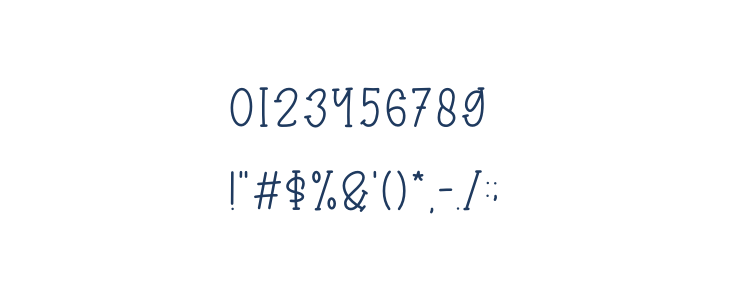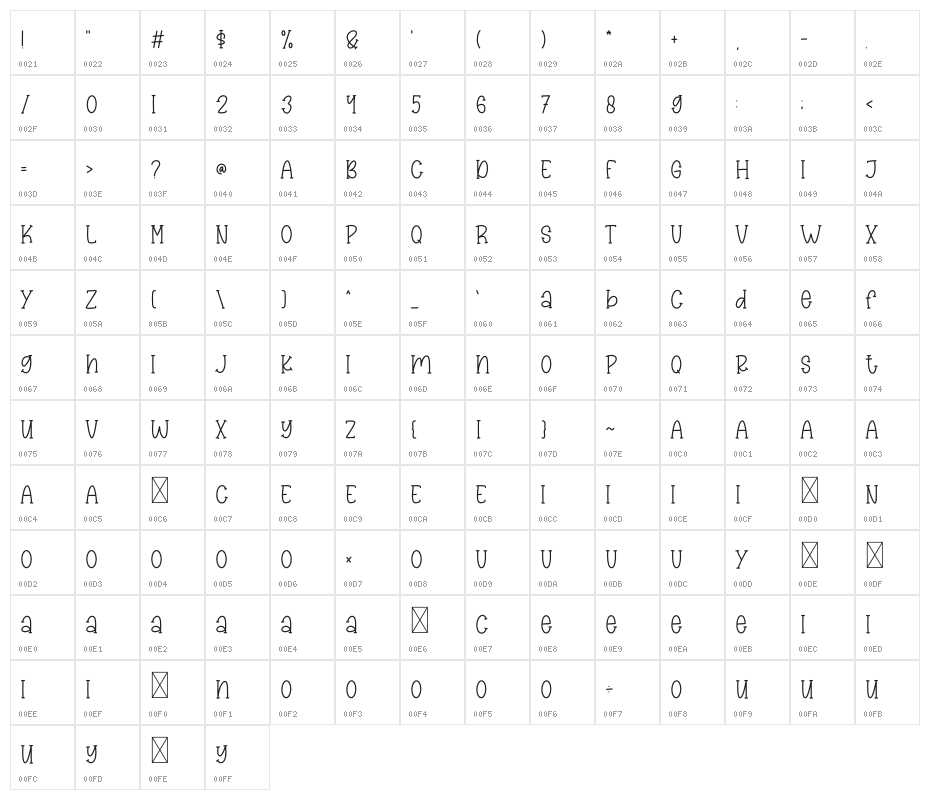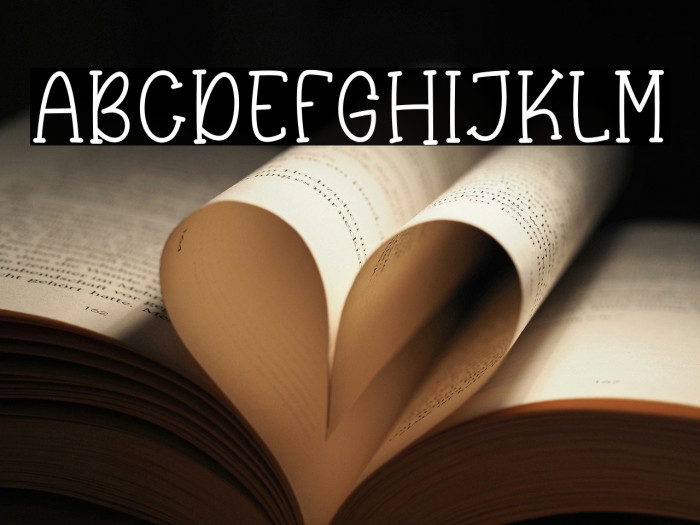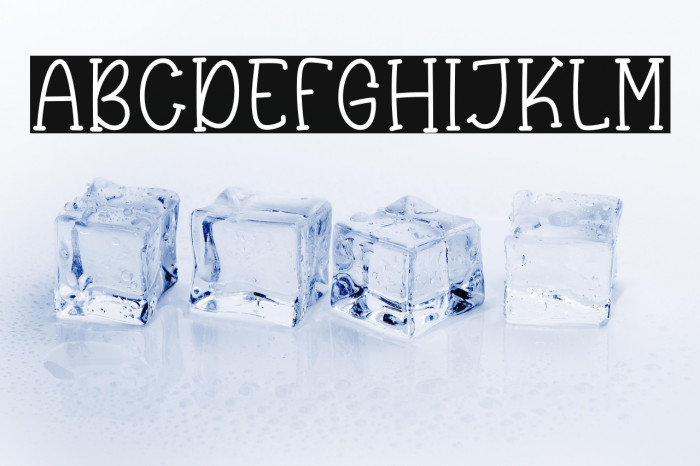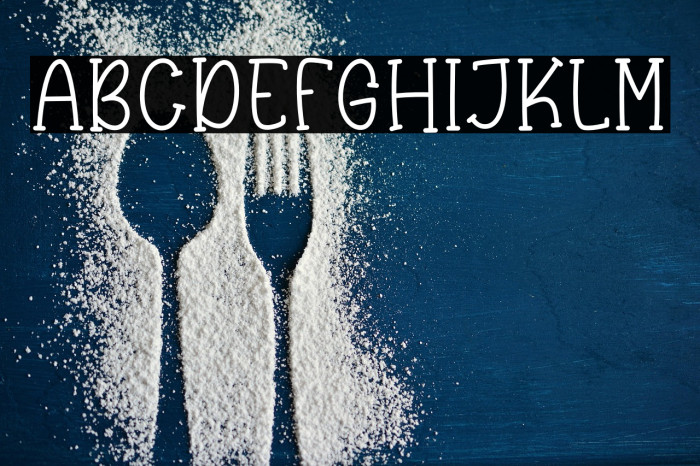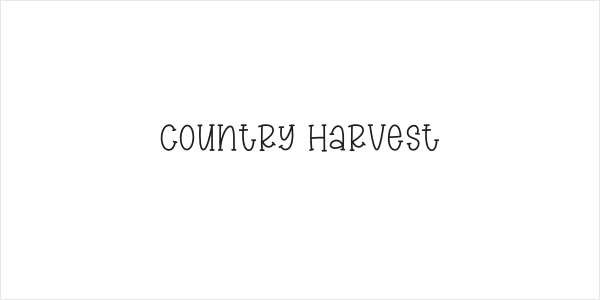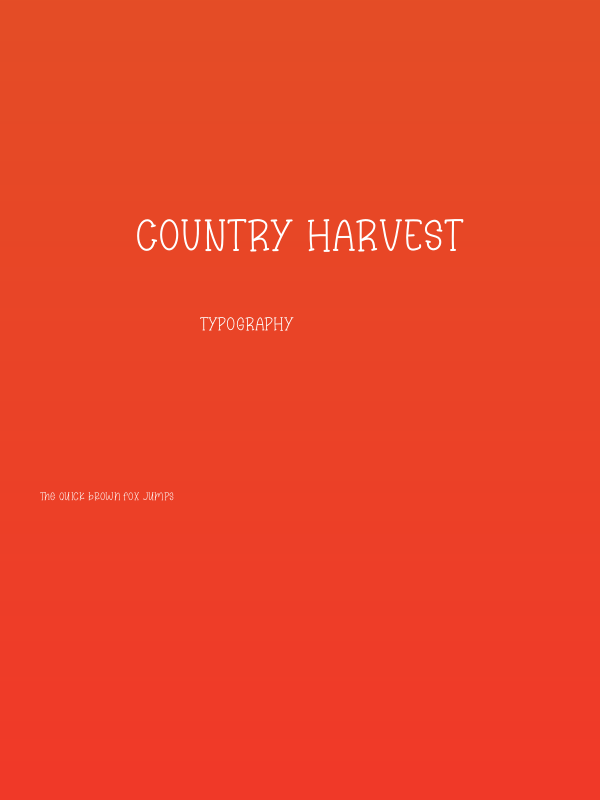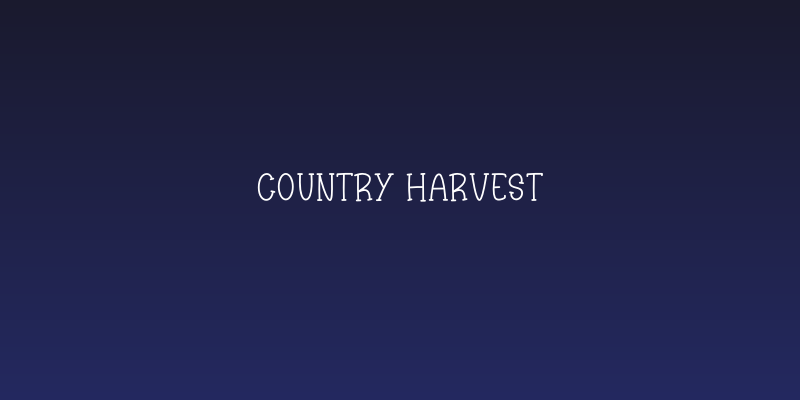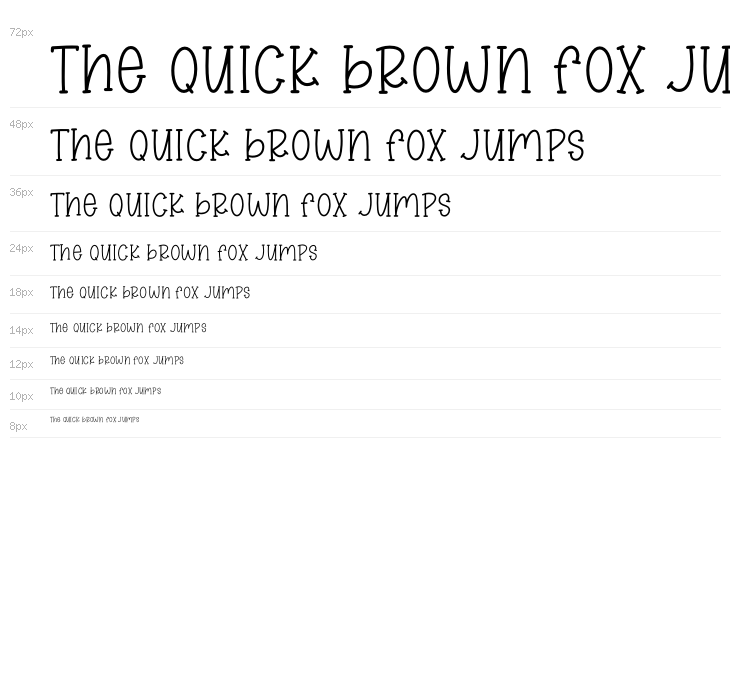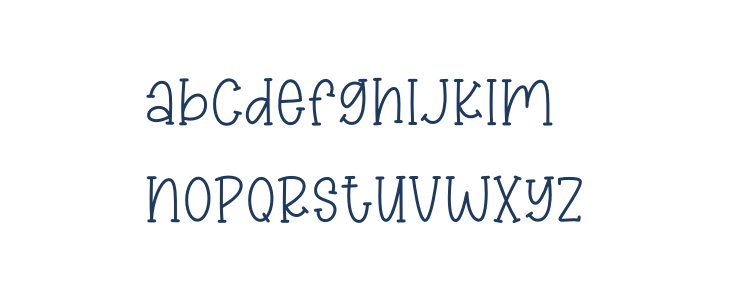
Country Harvest Font
Country Harvest Description
This font features a playful and whimsical design with a hand-drawn aesthetic. The characters exhibit a slight irregularity in their strokes, giving them a charming and rustic feel. The uppercase letters are bold and prominent, while the lowercase letters maintain a consistent style with a touch of elegance. The numerals are clear and easy to read, complementing the overall style. Special characters are creatively designed, adding to the font's unique personality. This font is perfect for projects that require a touch of creativity and warmth.
| Proposed Projects | Ideal for greeting cards, children's books, rustic-themed branding, and creative posters. |